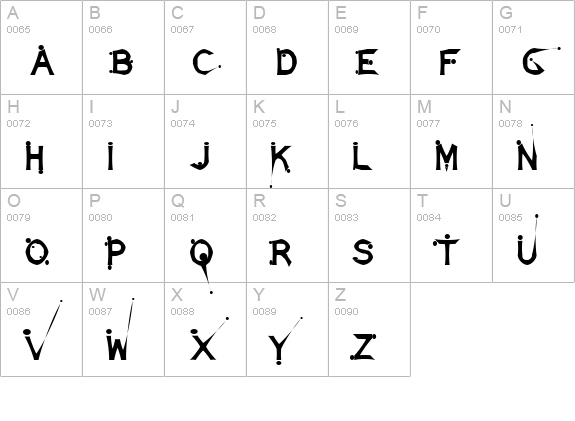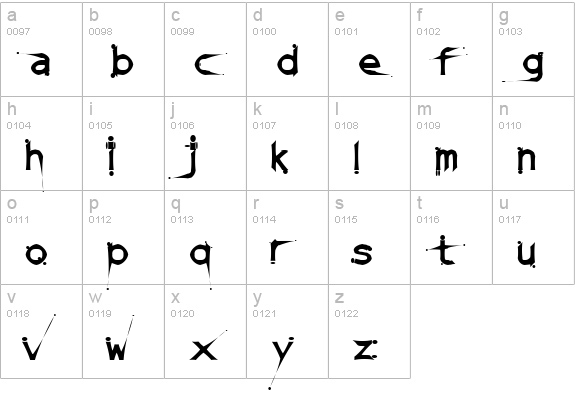
DamagedSataLightExtended Font Details
DamagedSataLightExtended is a unique and captivating font that will add a touch of edginess and character to any design project. With its distressed and worn-out appearance, this font exudes a sense of rawness and authenticity that is perfect for creating a grunge or vintage-inspired look. Featuring extended letterforms with subtle irregularities, DamagedSataLightExtended adds a sense of movement and dynamism to your typography. Each character has been carefully crafted to maintain legibility while still retaining its damaged and weathered aesthetic, making it an excellent choice for headlines, logos, and posters that demand attention. But what makes DamagedSataLightExtended truly special is that it is available for free download at FontsMarket.com. Yes, you read that right – this incredible font is freely accessible, allowing designers and creatives of all levels to incorporate its unique style into their projects without breaking the bank. Whether you're designing a grunge-inspired album cover, a retro event poster, or simply want to add a touch of unconventional beauty to your branding, DamagedSataLightExtended is the perfect font to bring your vision to life. So why wait? Go ahead and download this one-of-a-kind font now, and let your creativity run wild.